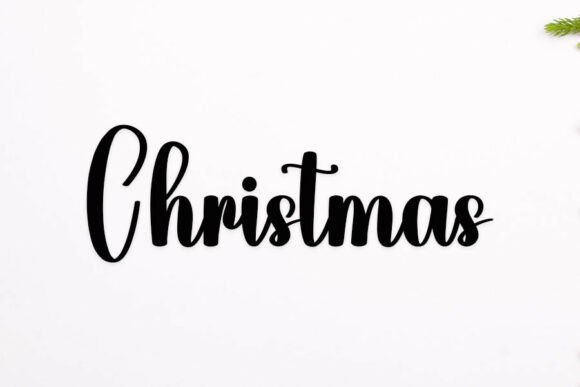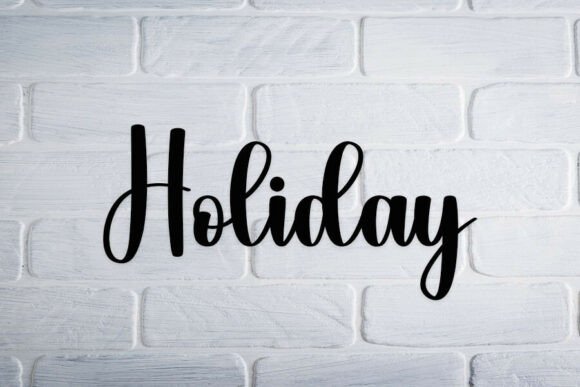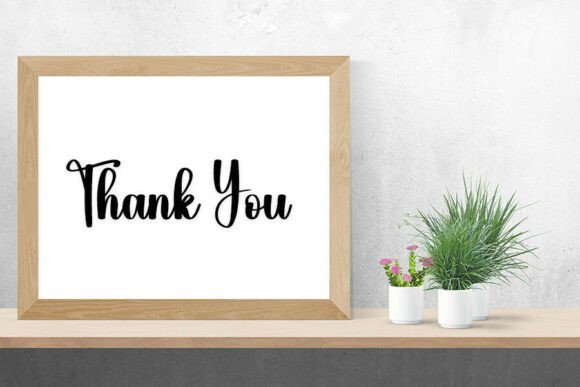
Embracing the Art of Hand-Lettering with Photo Studio Font
As you sit in front of your computer, surrounded by half-finished projects and scattered design assets, you can’t help but feel the urge to create something truly special. A beautiful typography can elevate your design from ordinary to extraordinary, and that’s exactly what the Photo Studio Font is designed to do. With its flowing modern calligraphy style, this exquisite typeface adds a touch of romance and artistic flair to your creative projects, making every word a work of art.
For designers, the Photo Studio Font is a valuable resource that can instantly elevate the perceived value of your work. Its high-quality design and versatility make it perfect for a wide range of applications, from photography branding to emotional quotes and personalized greeting cards. And the best part? It’s easy to use, even for those without extensive design experience.
Key Features of Photo Studio Font
- High-quality design resource ideal for creative projects, with a transparent background for seamless integration.
- Unique, modern font design with clean lines and a professional touch, perfect for photography and design-related themes.
- Easy to use and customize, making it a valuable resource for graphic designers, photographers, and digital artists.
- Perfect for use in digital photography, graphic design, and other creative projects where a high-quality, modern font is required.
Honest Review: Photo Studio Font
I recently stumbled upon the Photo Studio Font and decided to give it a try for my latest creative project. As a designer, I’m always on the lookout for high-quality design resources that can elevate my work. The Photo Studio Font did not disappoint.
What works well: ✨ The font is incredibly versatile and comes in a range of styles, making it perfect for a variety of creative projects. The transparent background feature is also a game-changer, allowing me to easily customize the font to fit my design needs. The font is also very easy to download and use, making it a great resource for designers on a tight deadline.
What doesn’t work so well: ⚠️ While the font is high-quality, it does lack a bit of depth and nuance in certain areas. Additionally, the font is not suitable for use in very small sizes, which can make it difficult to read in certain contexts.
Overall impression: I’m very impressed with the Photo Studio Font and would highly recommend it to designers looking for a reliable design resource. With its high-quality design and transparent background feature, it’s a great choice for a wide range of creative projects.
The Photo Studio Font is perfect for use in a variety of creative projects, including photography studio branding, product photography, and advertising campaigns. Its high-quality design and transparent background make it ideal for use on images with complex backgrounds.
To get the most out of the Photo Studio Font, be sure to use it in conjunction with other high-quality design elements, such as high-resolution images and well-designed graphics. This will help to create a cohesive and professional-looking design.